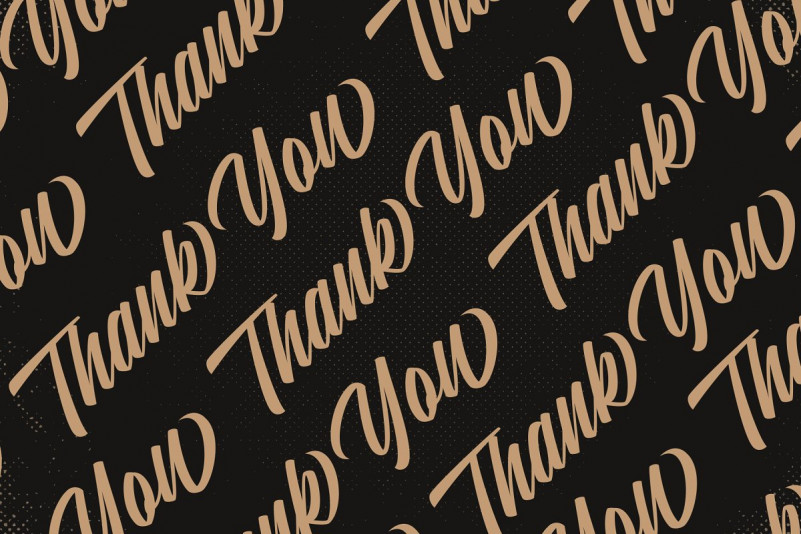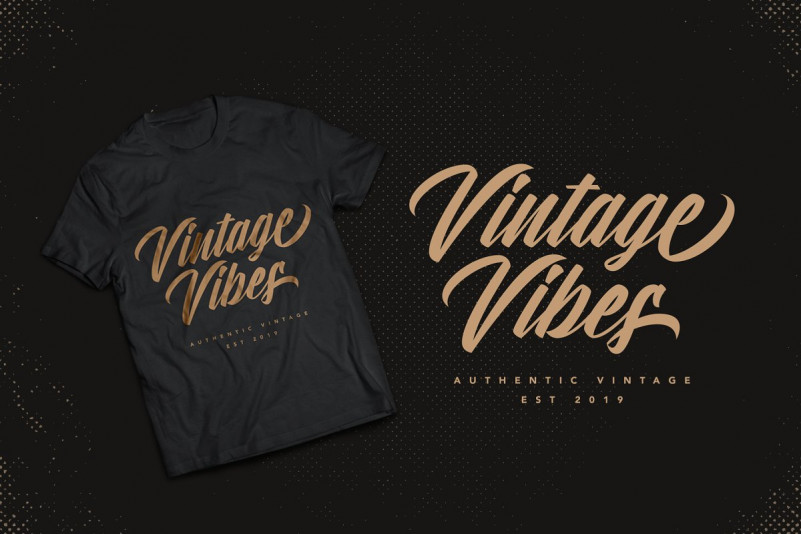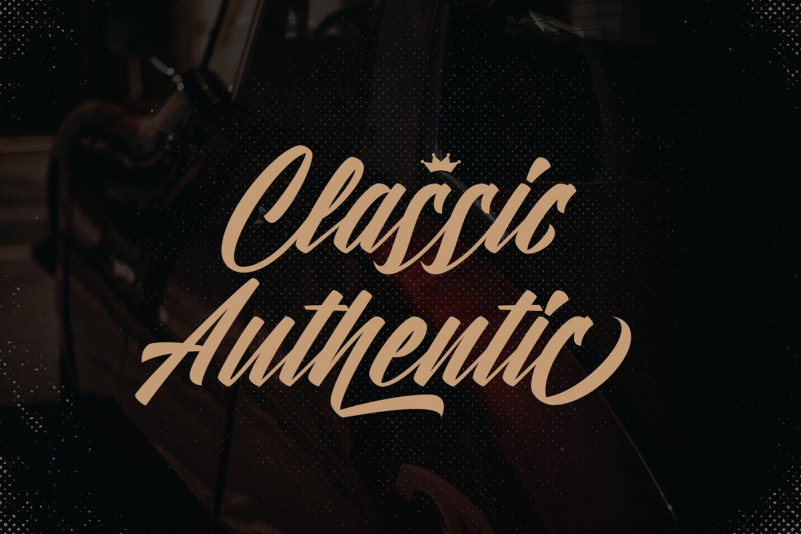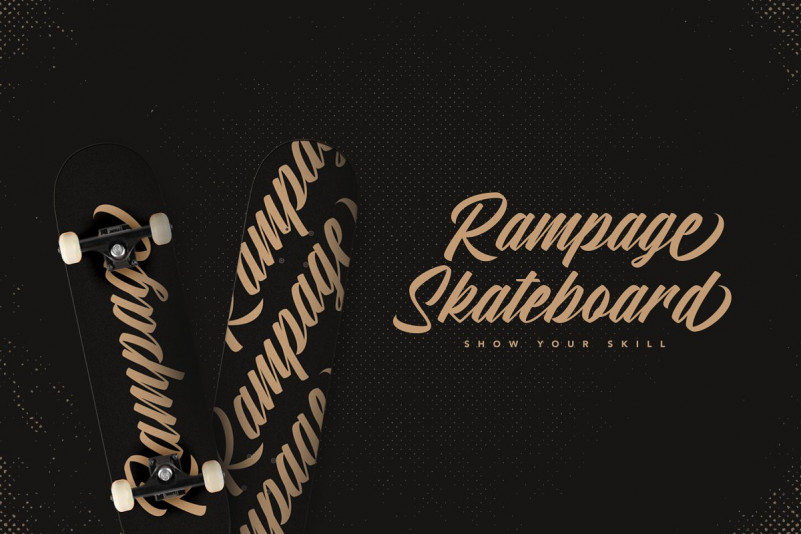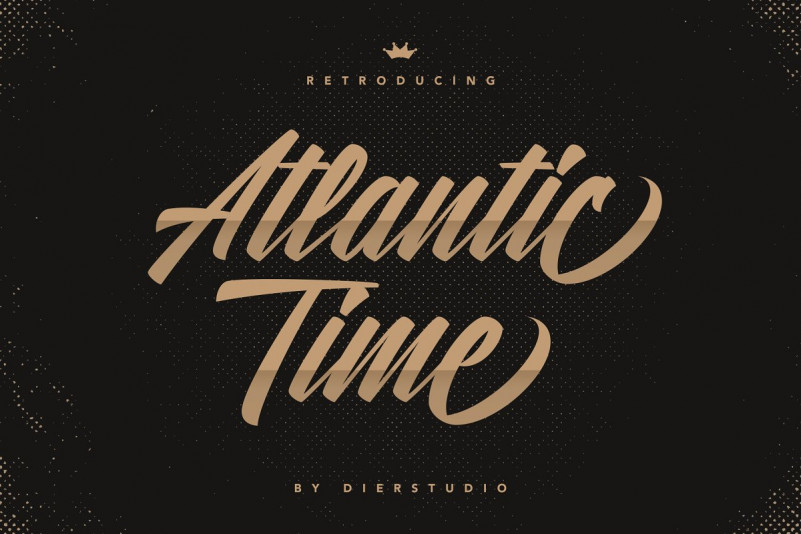
Atlantic Time Script Font
Introducing! New calligraphy script font. Atlantic Time! It’s a Script font with a which gives a strong and vintage touch to your projects. with 6 sets of styles that will make this font more Interesting
Atlantic Time Script is to use for any kind of design such as branding projects, logos, social media posts, advertisements, product packaging, product designs, labels, poster, photography, t-shirt, watermarks, paper bag, stationery, and any projects.